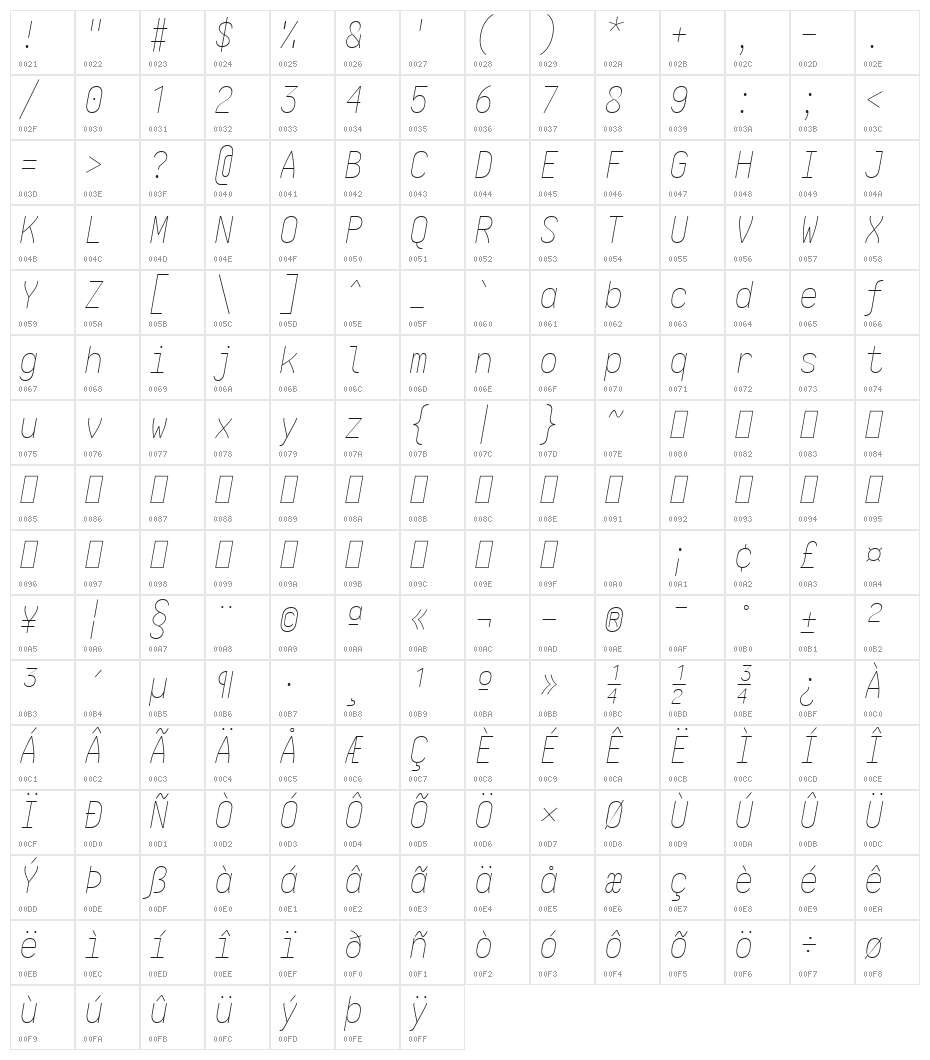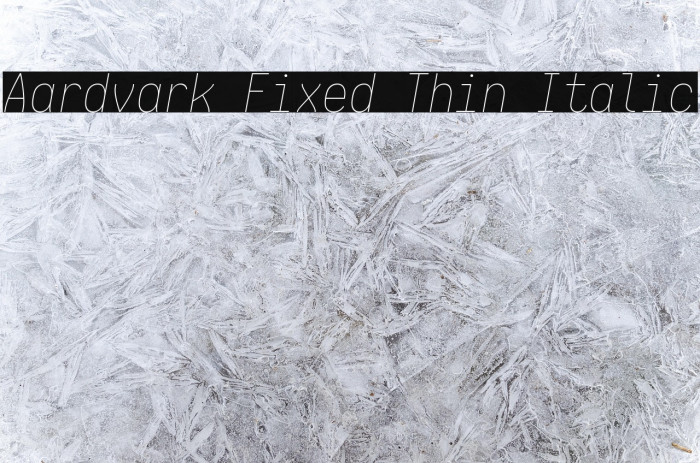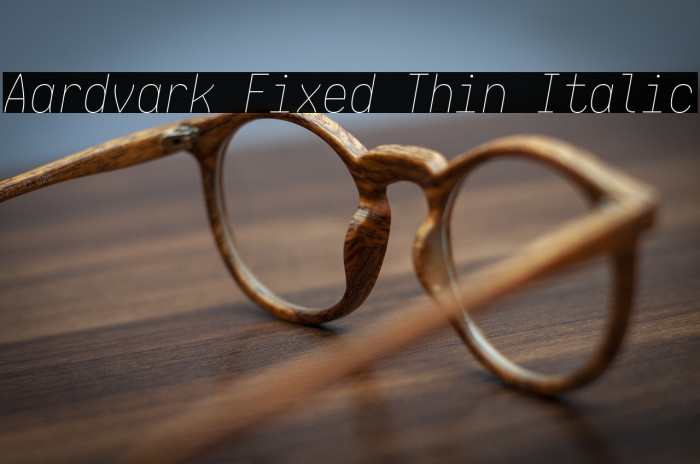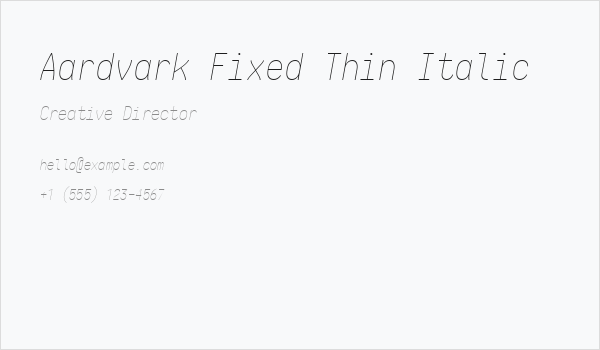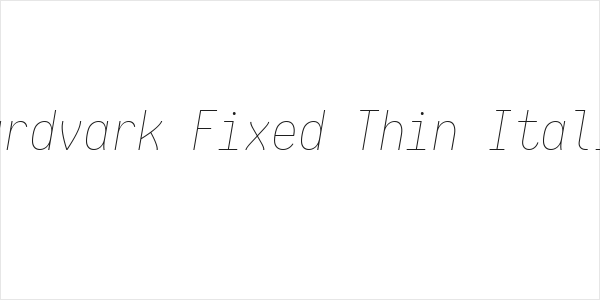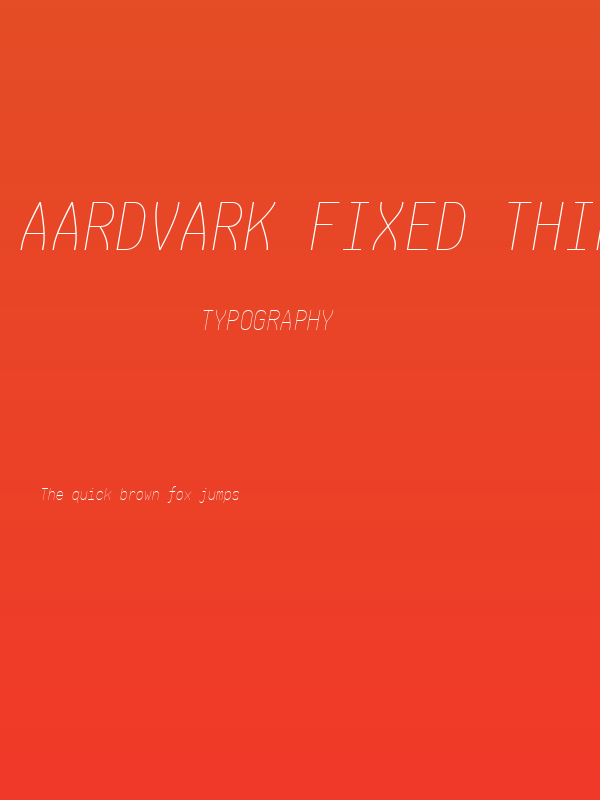
Aardvark Fixed Thin Italic Font
Aardvark Fixed Thin Italic Description
This font features a sleek and modern design with a thin, delicate stroke that gives it an elegant appearance. The characters are slightly slanted, adding a dynamic and italicized feel. Its monospaced nature ensures uniformity in character width, making it ideal for coding or technical documents. The font maintains a consistent line weight throughout, contributing to its clean and minimalist aesthetic. The spacing between characters is normal, providing readability without overcrowding. Its simplicity and clarity make it versatile for various applications, from digital interfaces to printed materials.